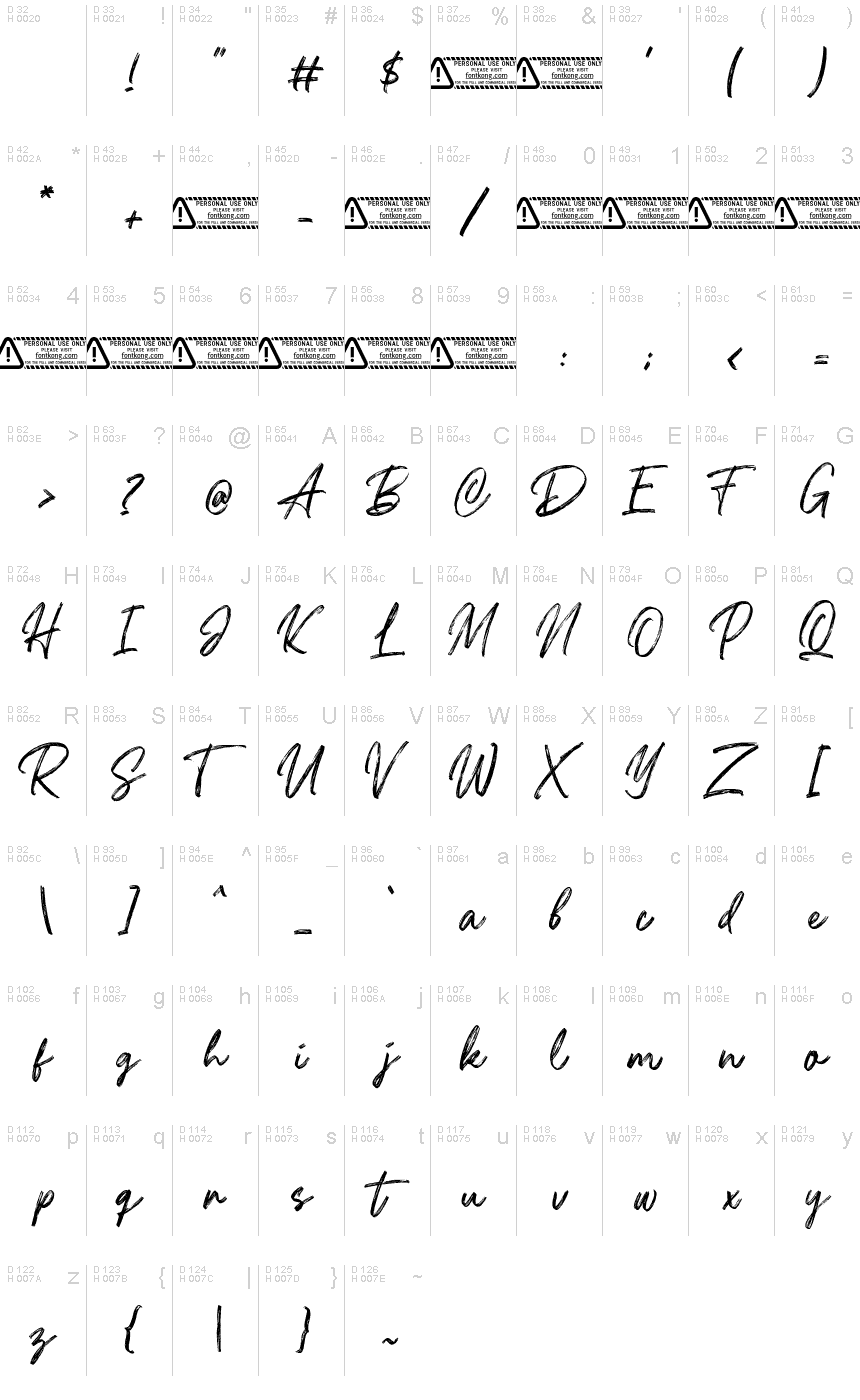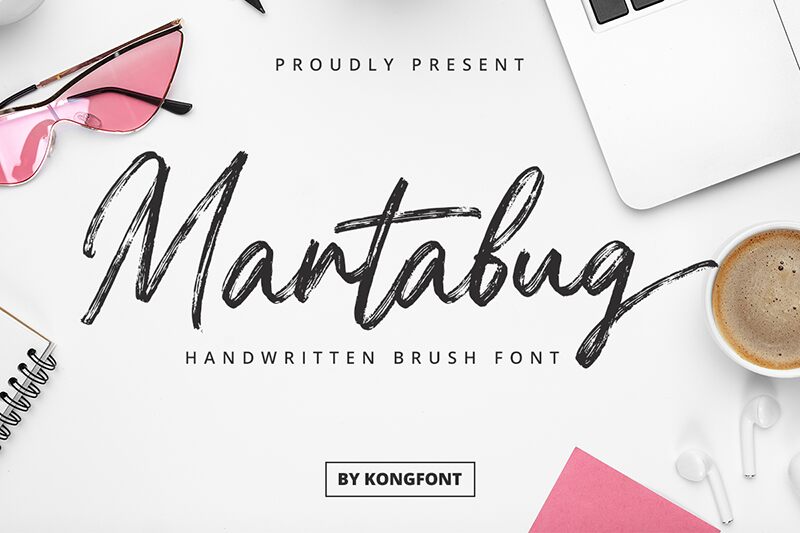
Martabug
Martabug, crafted by the brilliant Kong Font, is a stunning brush font with a semi-light weight. Its delicate strokes and artistic flair make it a perfect choice for creative projects that require a touch of elegance and sophistication. Whether you're designing invitations for weddings, creating eye-catching logos for fashion brands, or adding a personal touch to your blog headers, Martabug's unique style will captivate your audience. With its versatility in both digital and print media, this font is an ideal companion for graphic designers seeking to infuse their work with an air of refined beauty.